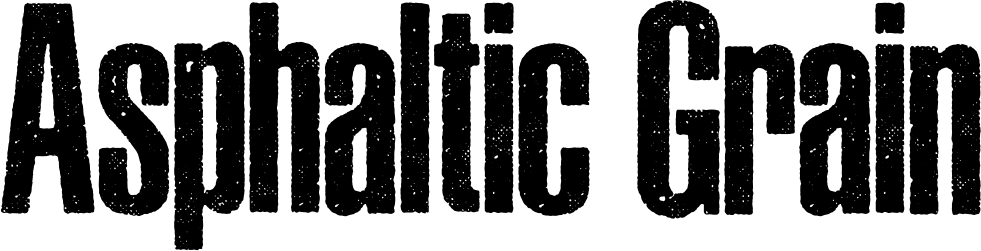
Asphaltic Grain Font
Are you ready to design your writing project more specific? Here is a new Asphaltic Grain eroded font that can give a fancy look to your text. This condensed font has emerged with a tall, dirty, and grunge design that makes it a perfect option to use in any flyers, advertisements, posters, titles, or promotions. Get this opportunity right now and enjoy!